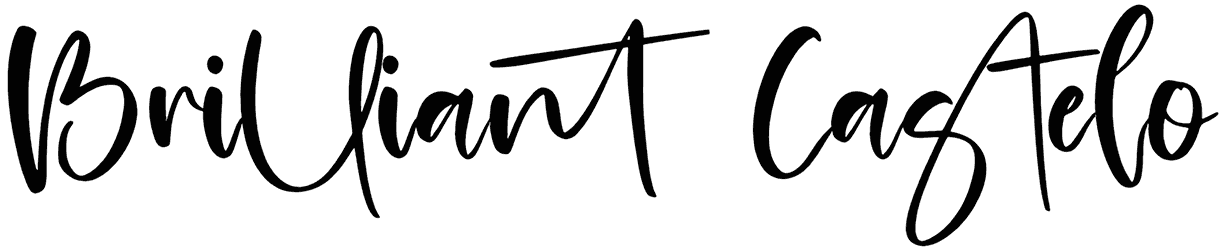
Brilliant Castelo Font
Brilliant Castelo is a handwritten font with two different styles that you can add to your font collection. This fast handwritten font gives the reader a fancy, vintage, and nostalgic feeling, and when the words are put together, it gives a continuous effect to your words.
You can use it for fashion blogs, summer party flyers, retro movie posters, product names, and concert promotions.